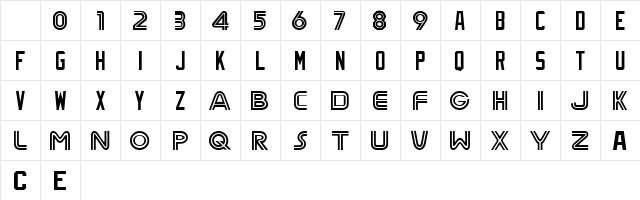
MLB Blue Jays wears its vintage influences proudly, with letterforms that recall mid-century signage, classic packaging, and nostalgia-driven design.
Font Pairing: Combine MLB Blue Jays with a simple slab or neutral sans - period-accurate companions reinforce the vintage feel without competing for attention.
Pro Tip: Lean into MLB Blue Jays's period character by pairing it with aged paper textures, muted colour palettes, and vintage illustration styles.